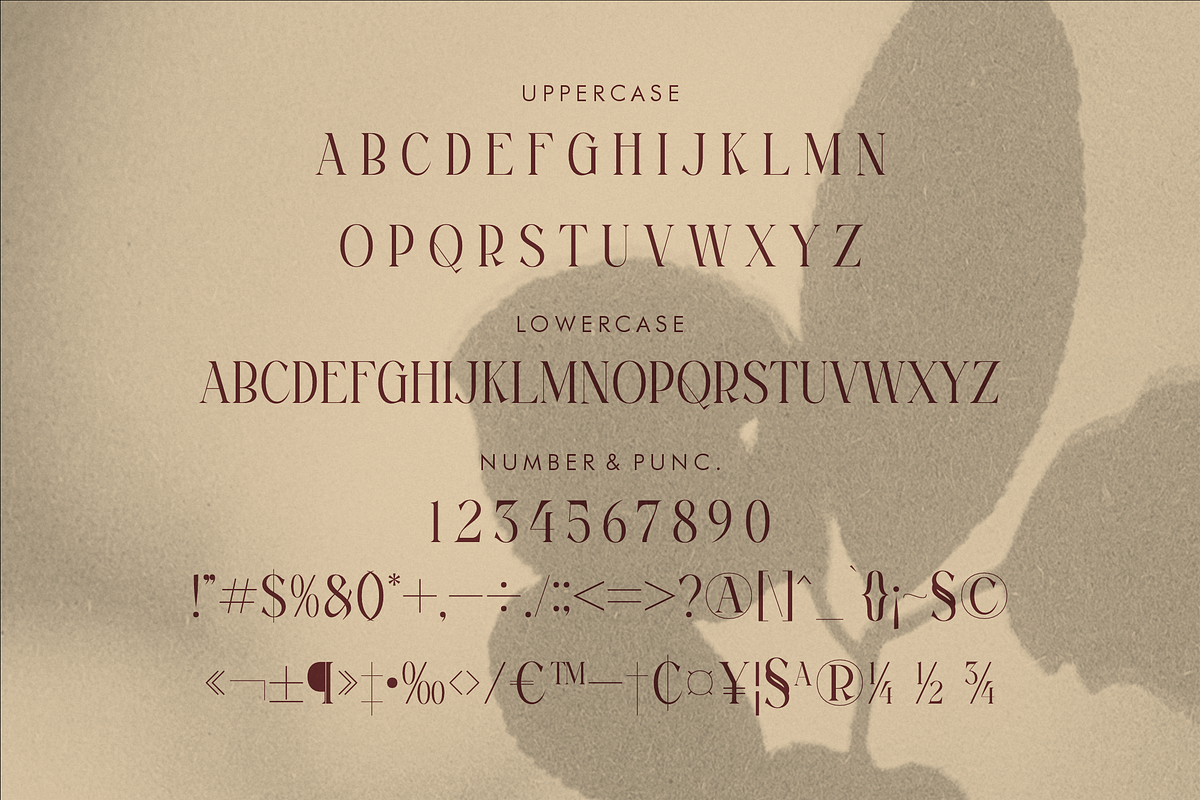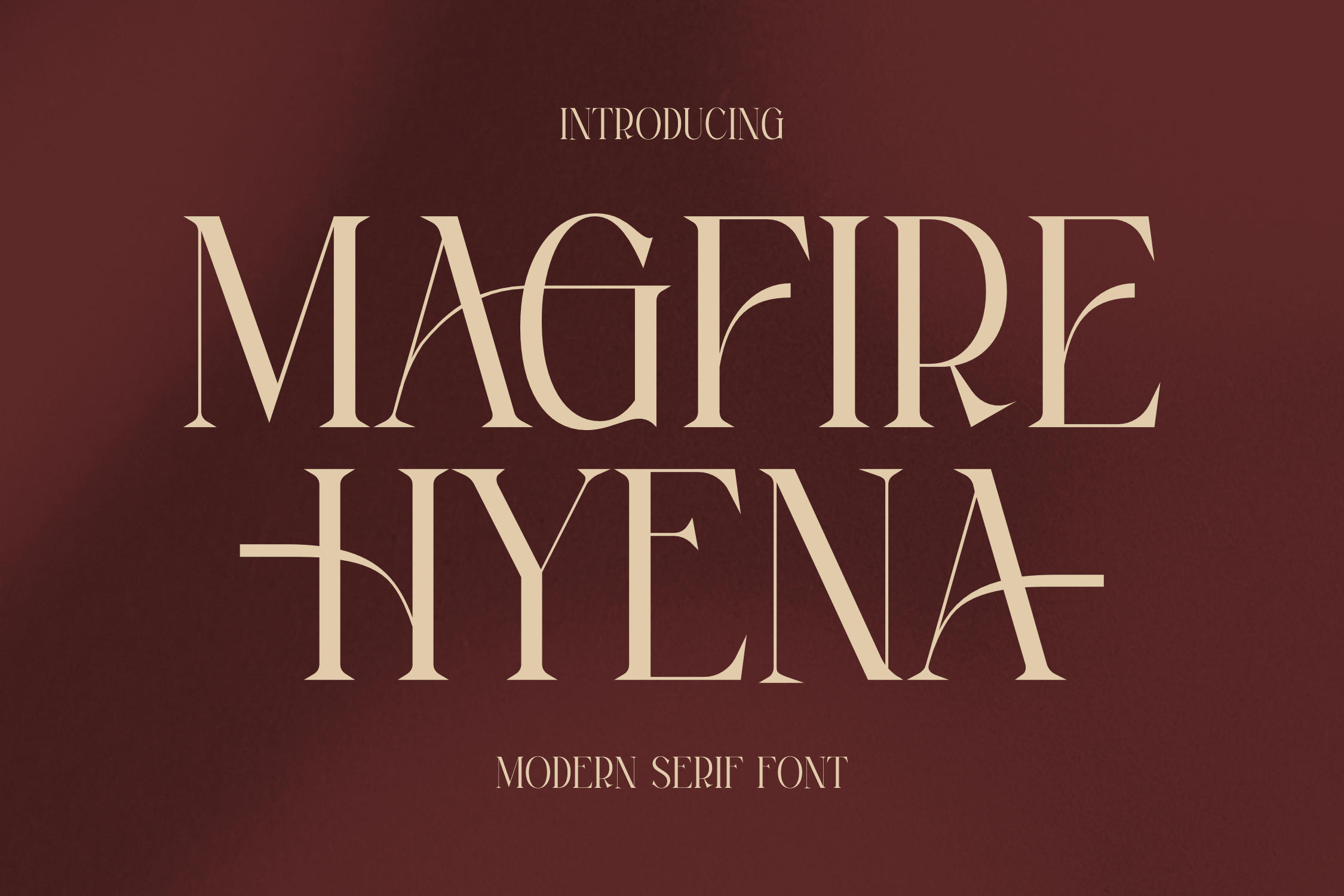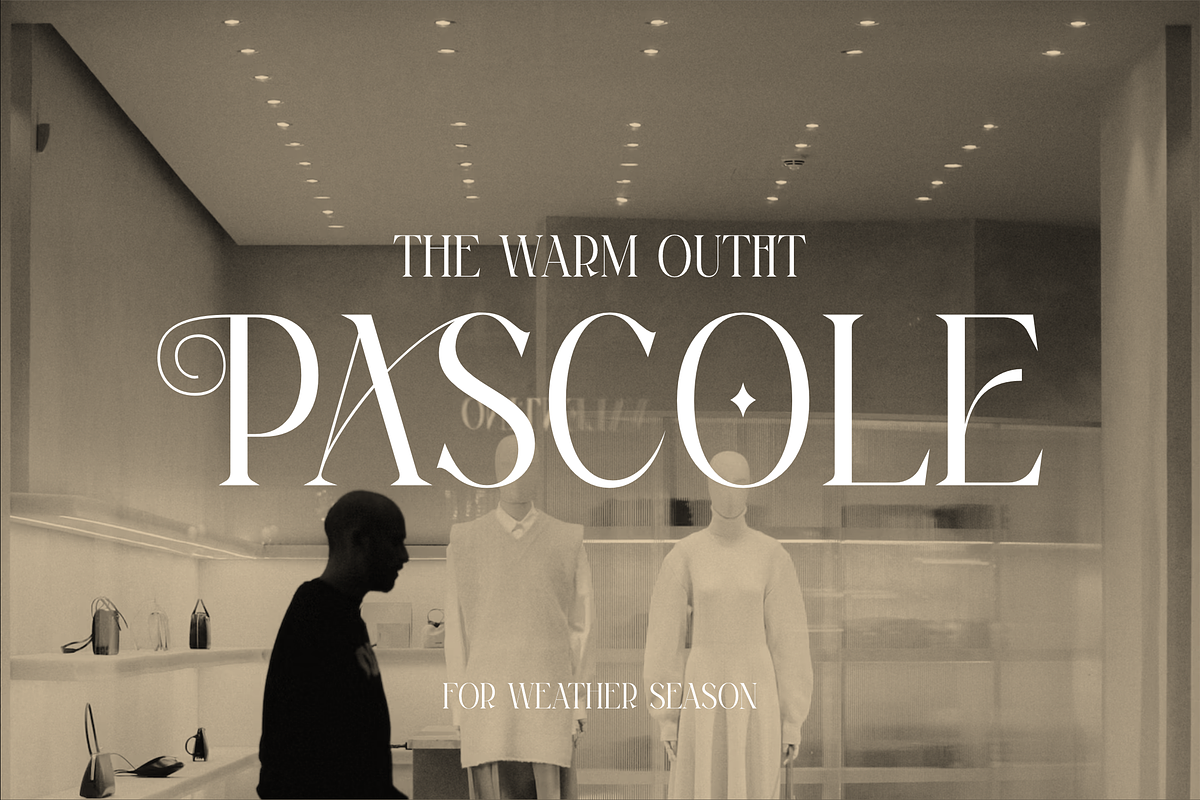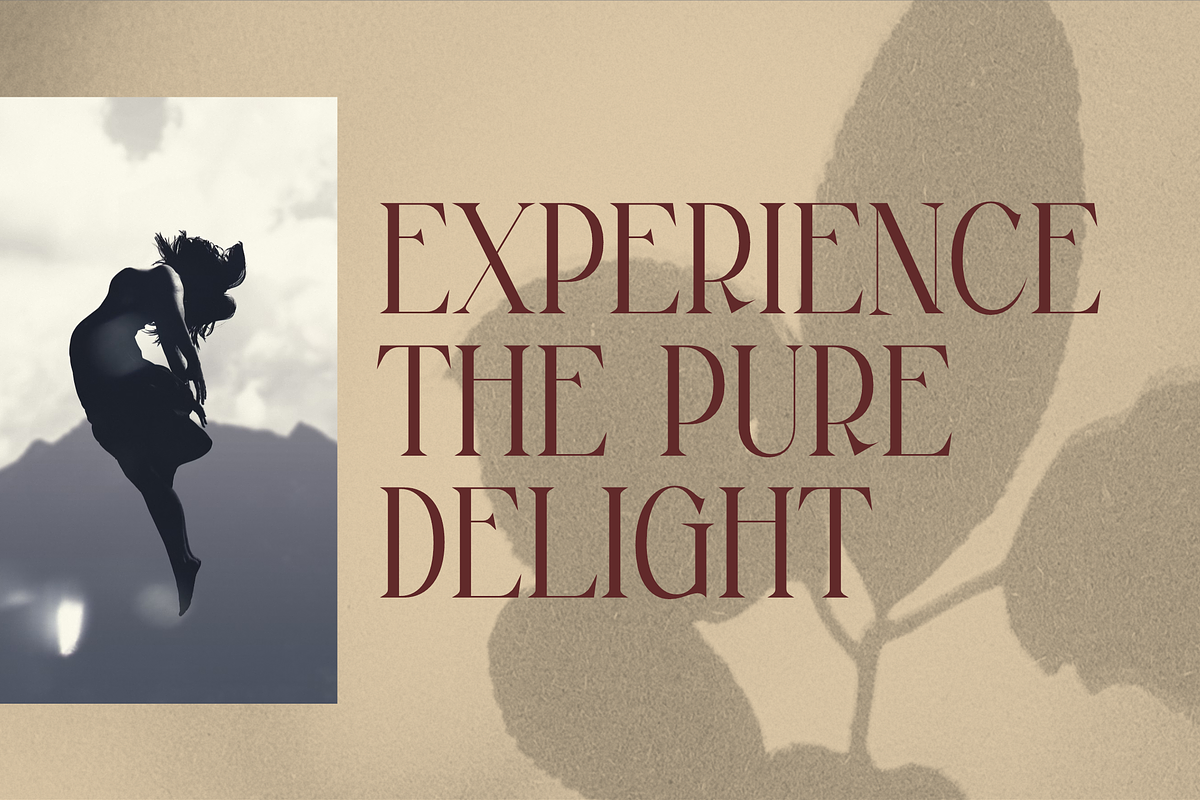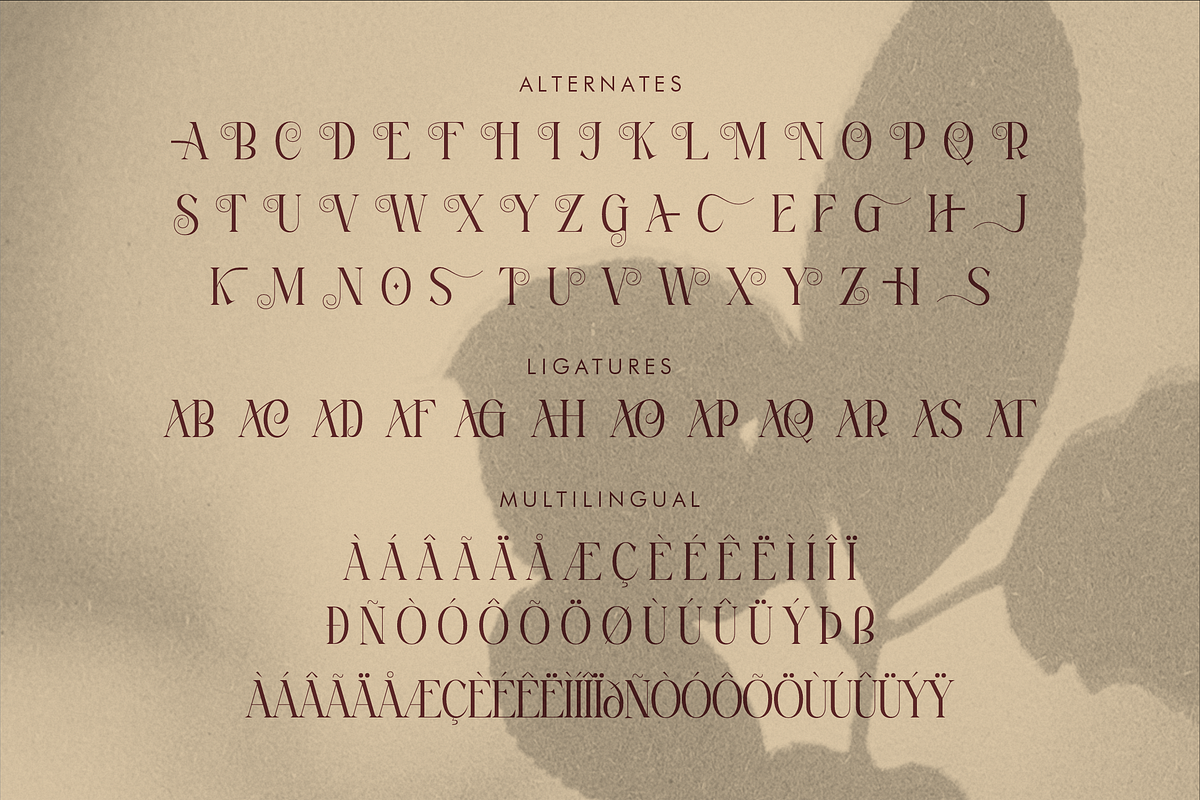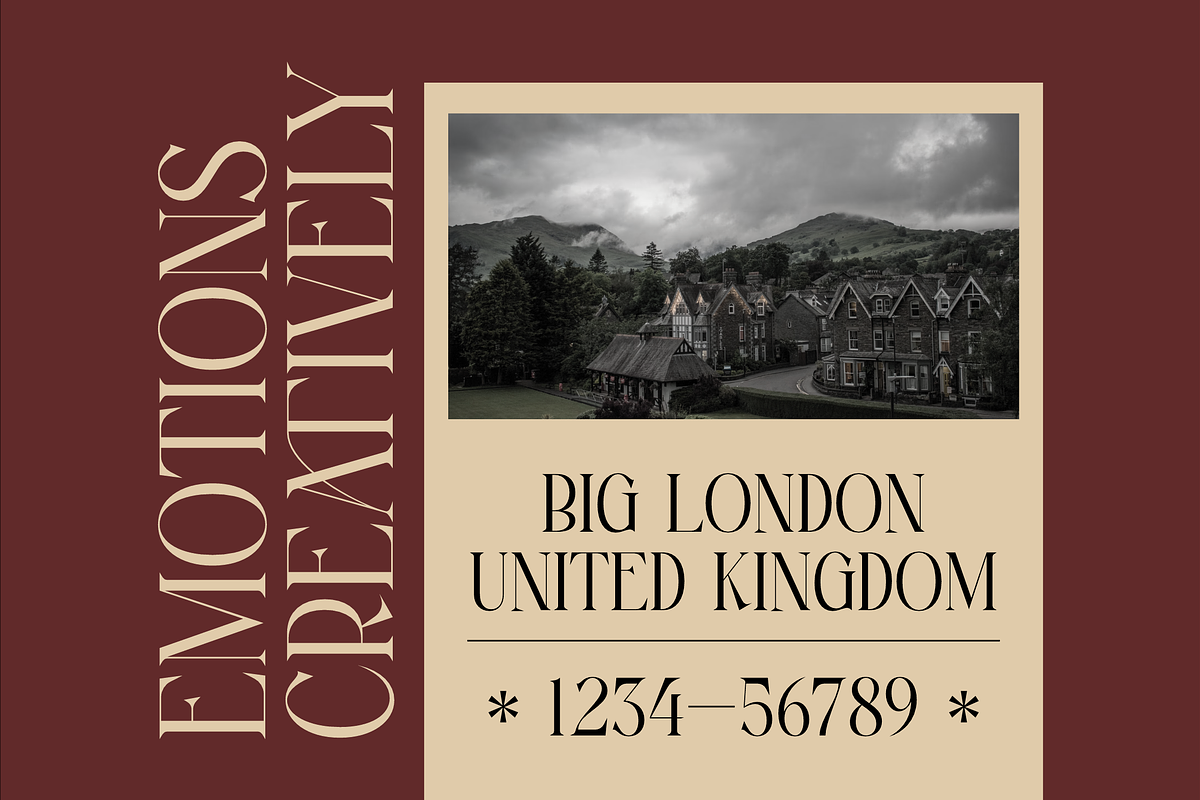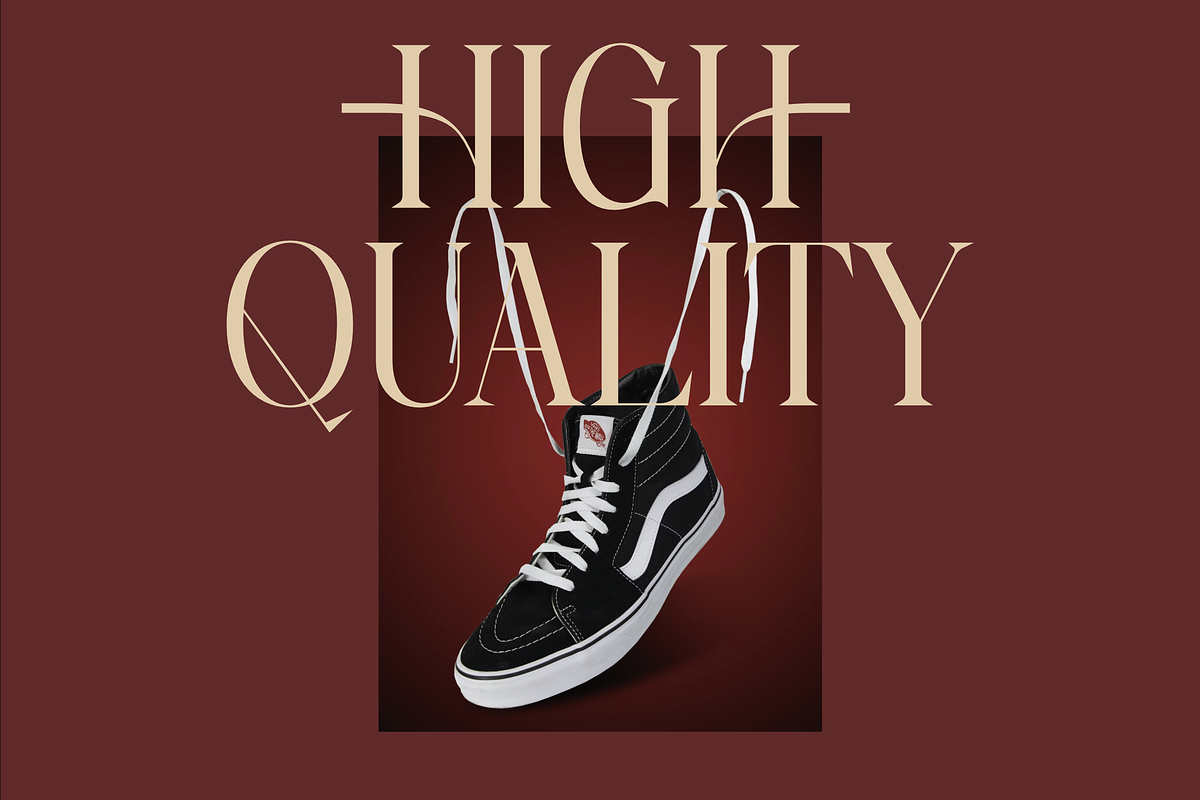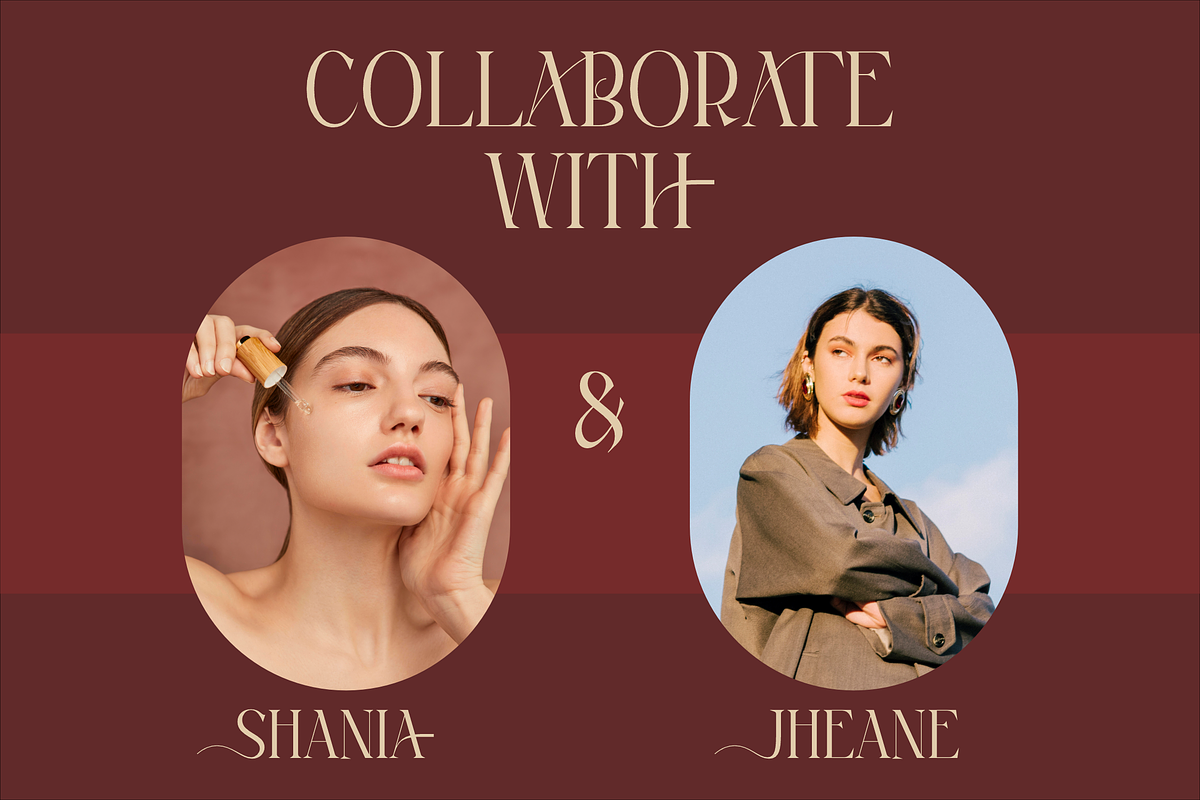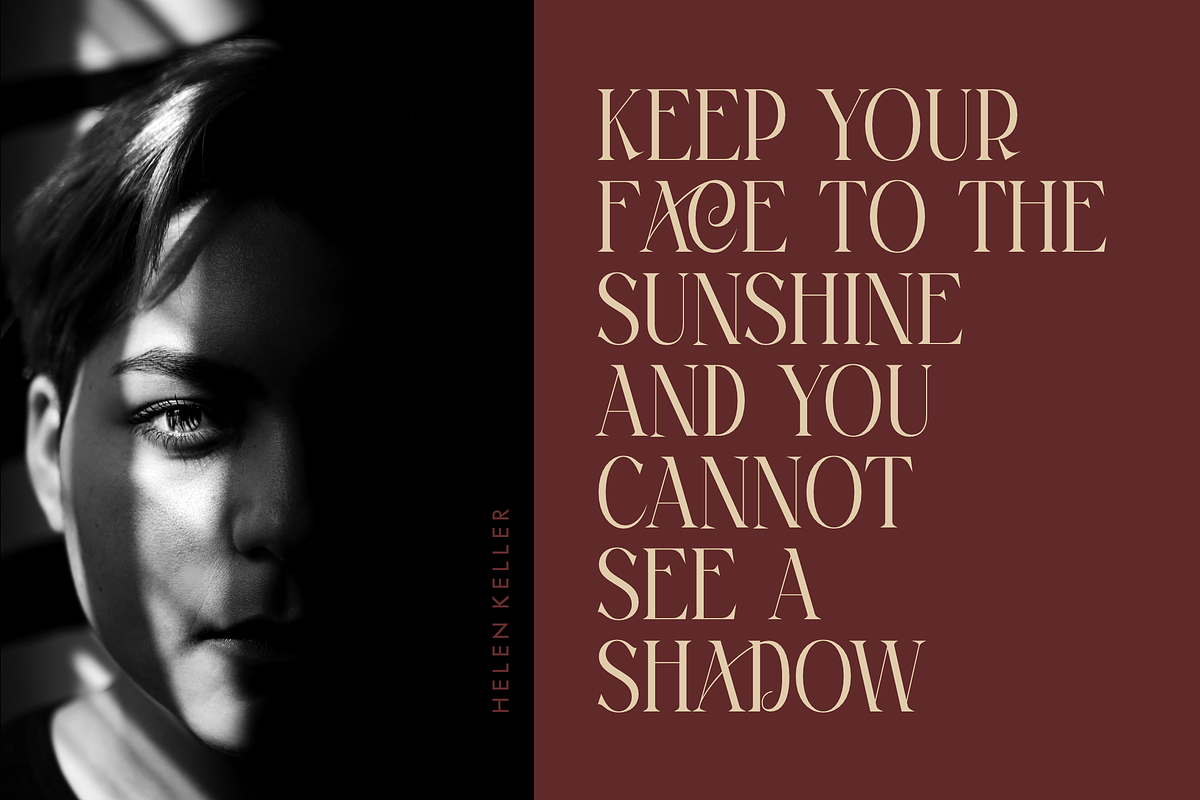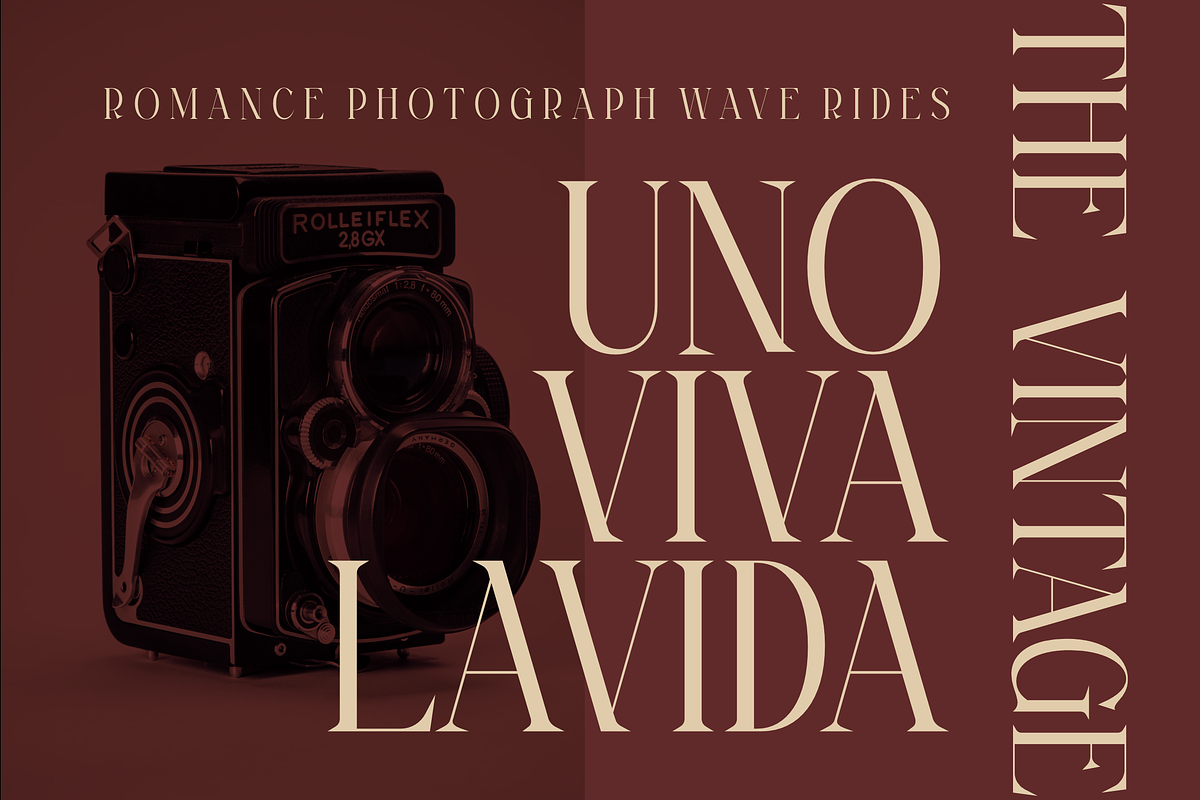
Magfire Hyena Modern Serif Font
Proudly present MAGFIRE HYENA Typeface , created by Storytype, A serif modern and classic typeface that has own unique style & modern look. This typeface is perfect for an elegant & luxury logo, book or movie title design, fashion brand, magazine, clothes, lettering, quotes, and so much more.